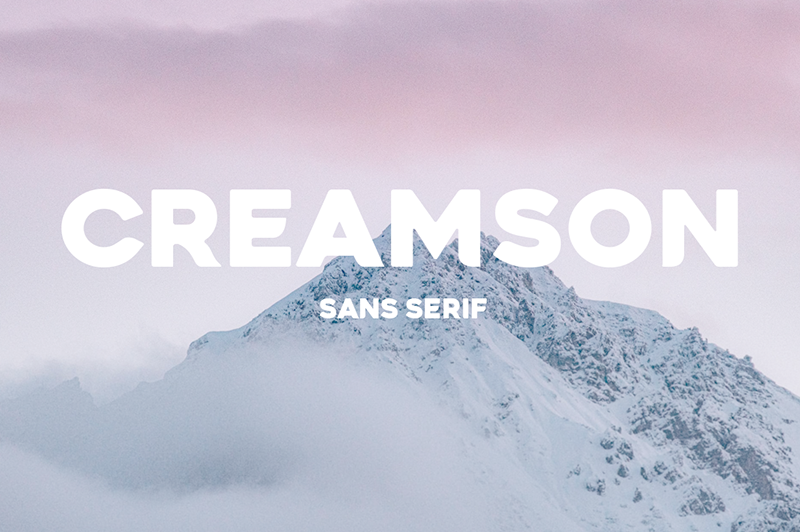
Preview and download Creamson Font. Created by The Branded Quotes in Basic Sans serif styles with Free for personal use license.
Personal Use Only. Purchase the font here for licensed use: https://thebrandedquotes.sellfy.store/p/creamson-sans-serif/ About this font: Creamson is an All-Capital Sans Serif with clear and non-sophisticated appearance. Though it is bold and loud, its perfectly curved edges made its overall look soft in the eyes. Making it a fresh output of a Sans Serif font! Useful for: -headlines -banners/posters -logo -album covers -zoom meeting invitations Features: -Regular -Outline -Multilingual Thank You! |